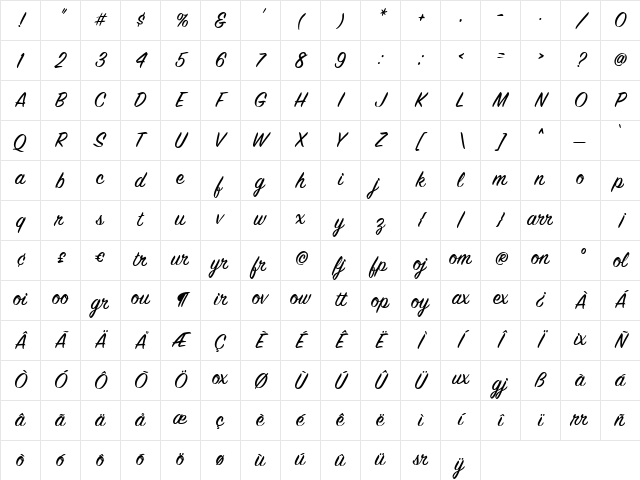
Complete SignPainter HouseScript Regular glyph index. Displaying only characters natively supported by SignPainter HouseScript Regular font.
SignPainter HouseScript flows with the natural rhythm of handwritten lettering, making it ideal for designs that call for warmth and personal expression.
Font Pairing: Combine SignPainter HouseScript with a simple geometric sans for maximum contrast - the tension between flowing curves and clean structure is a classic typographic pairing.
Pro Tip: Use SignPainter HouseScript for short runs of text - names, titles, or taglines. Extended body copy in script faces tires the eye quickly.